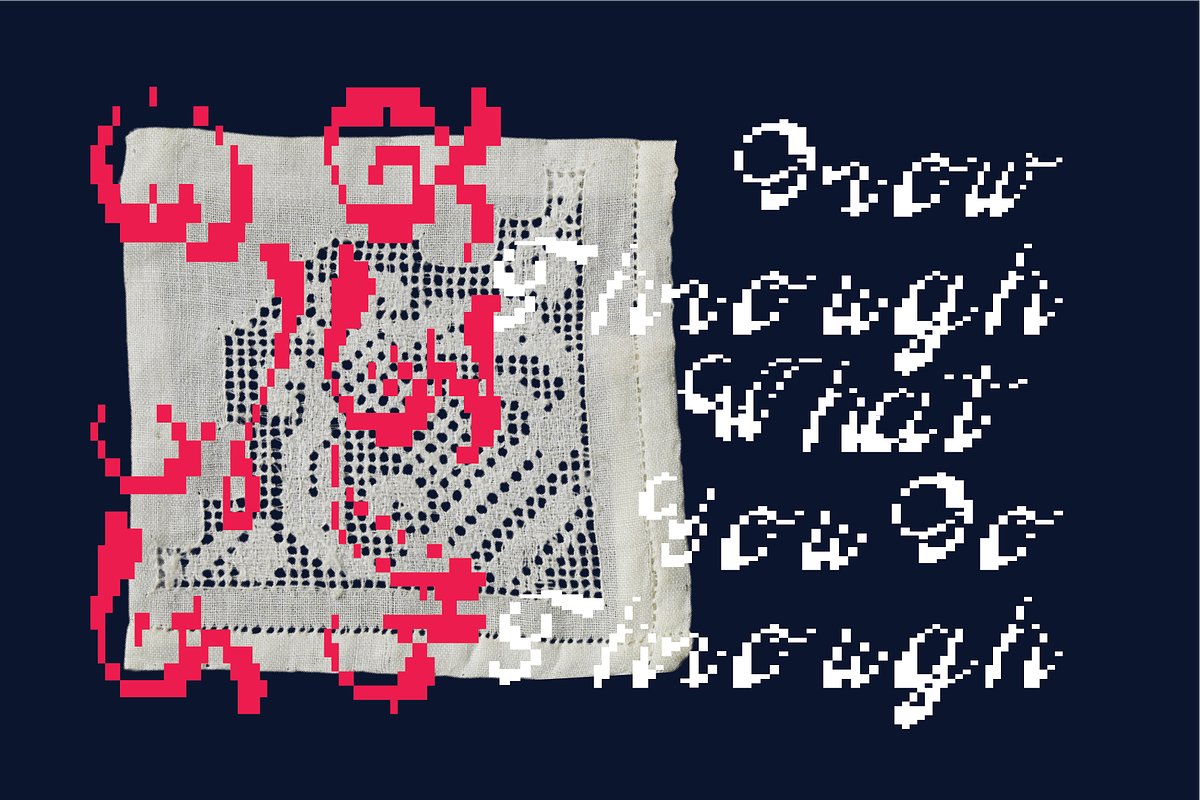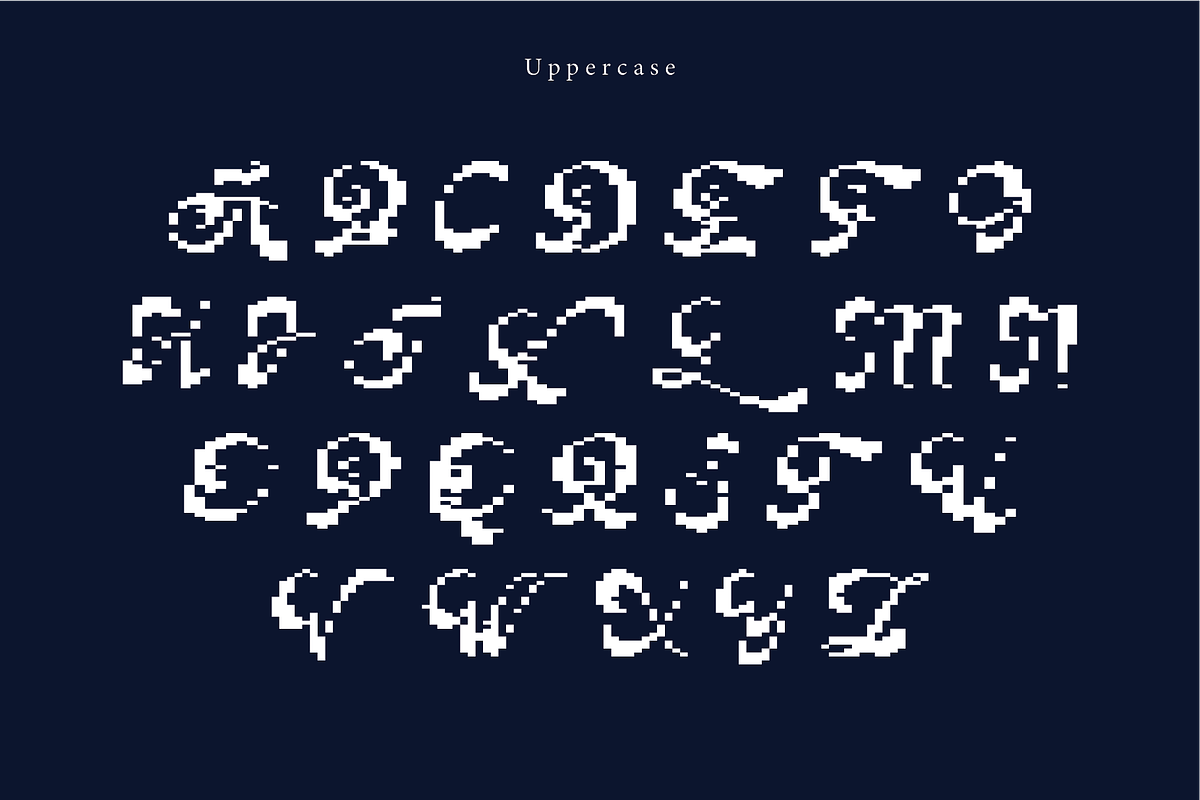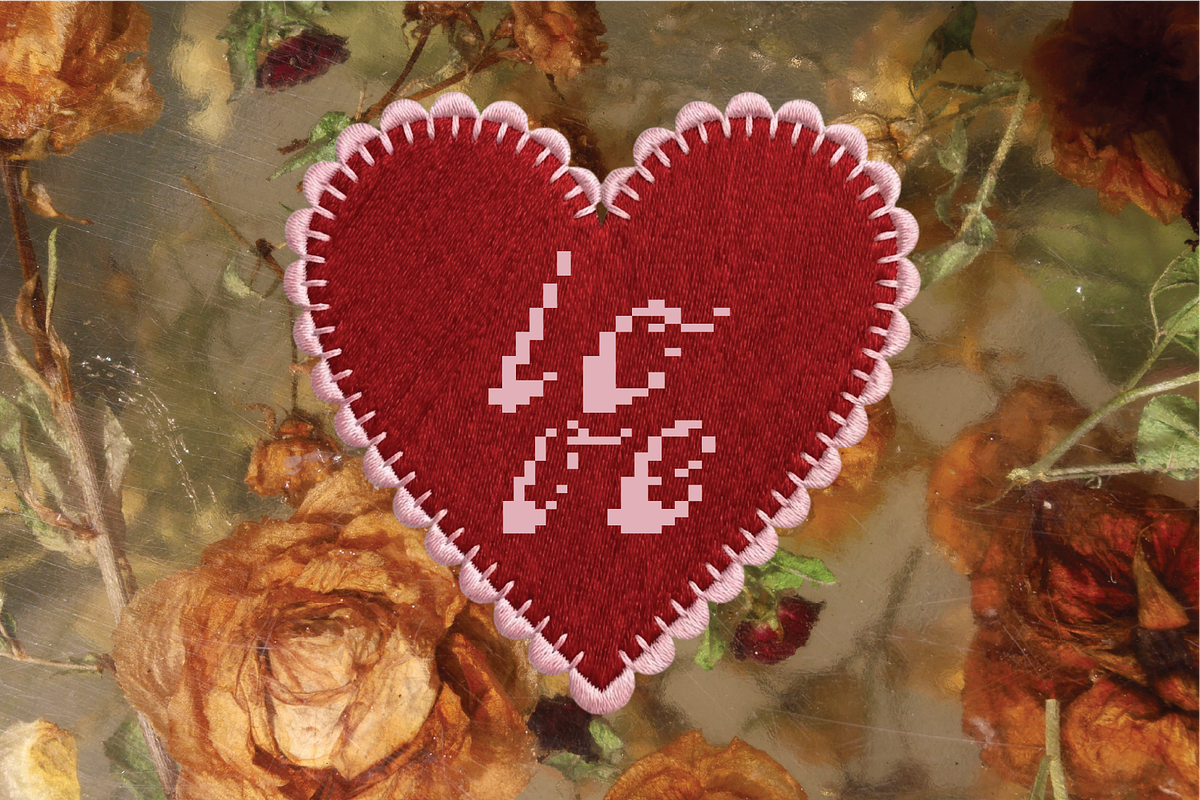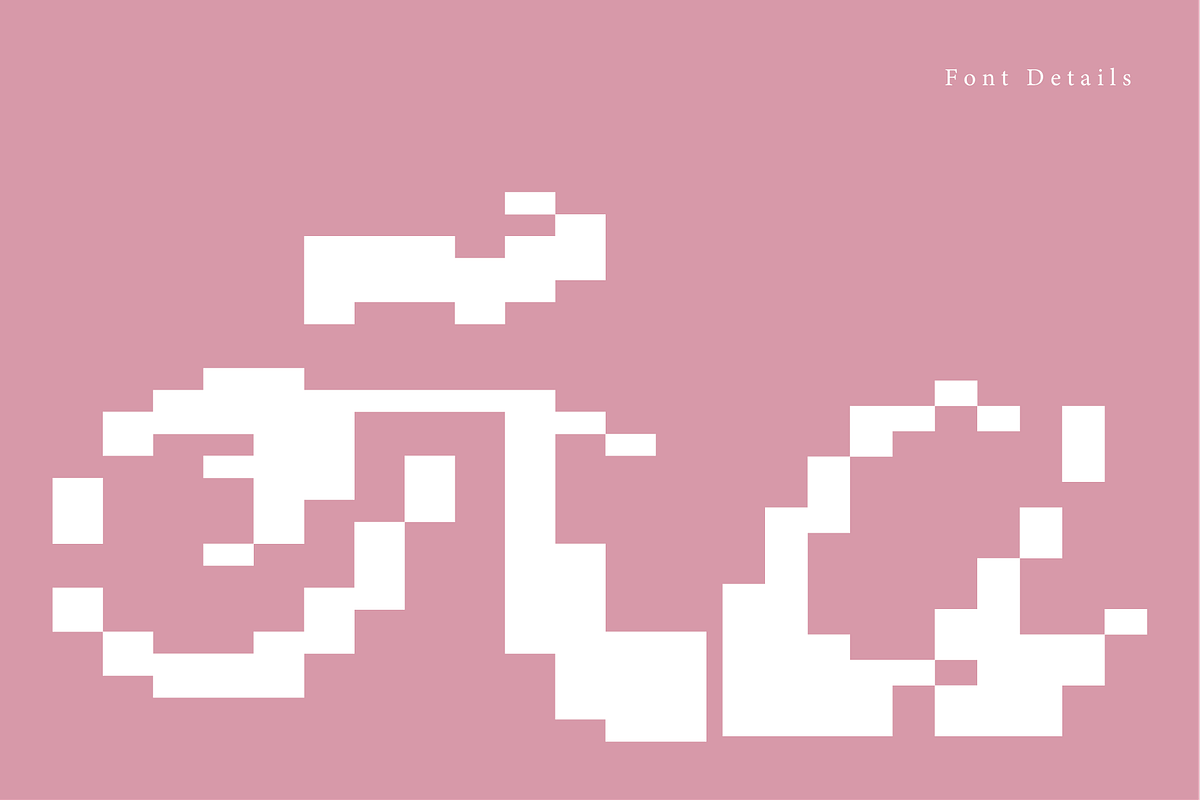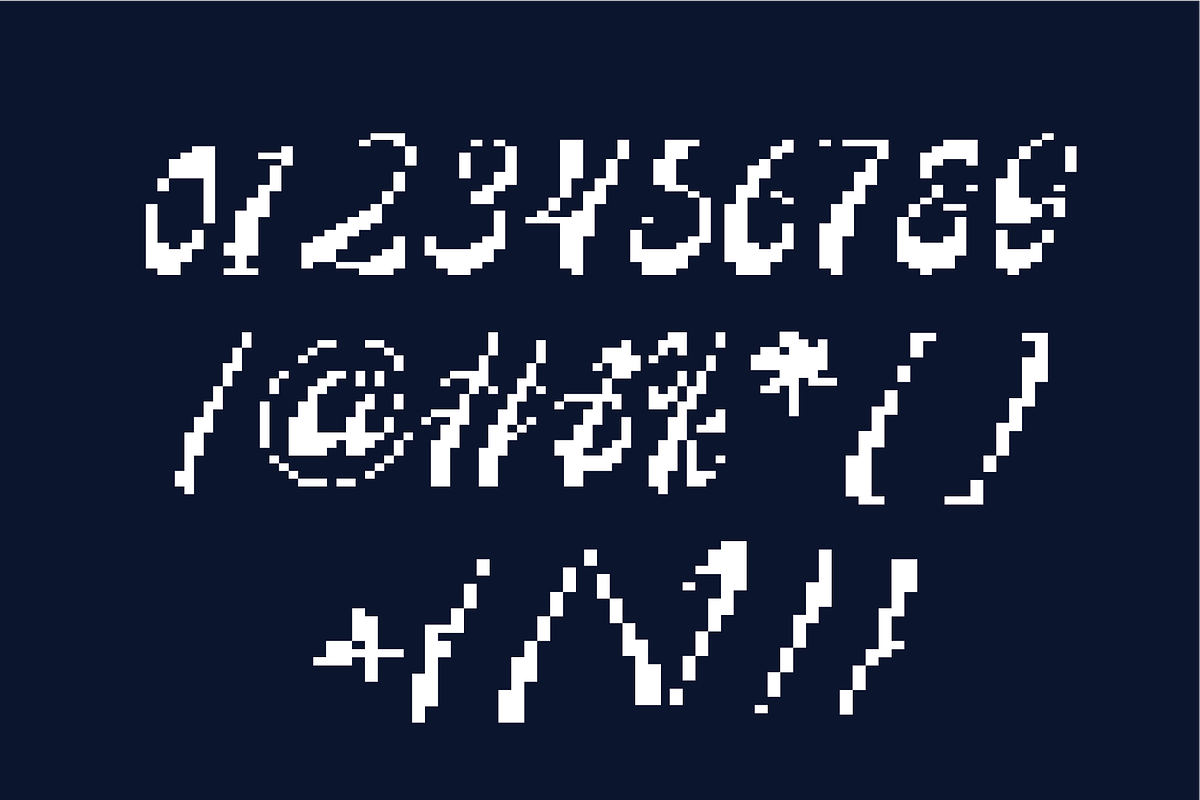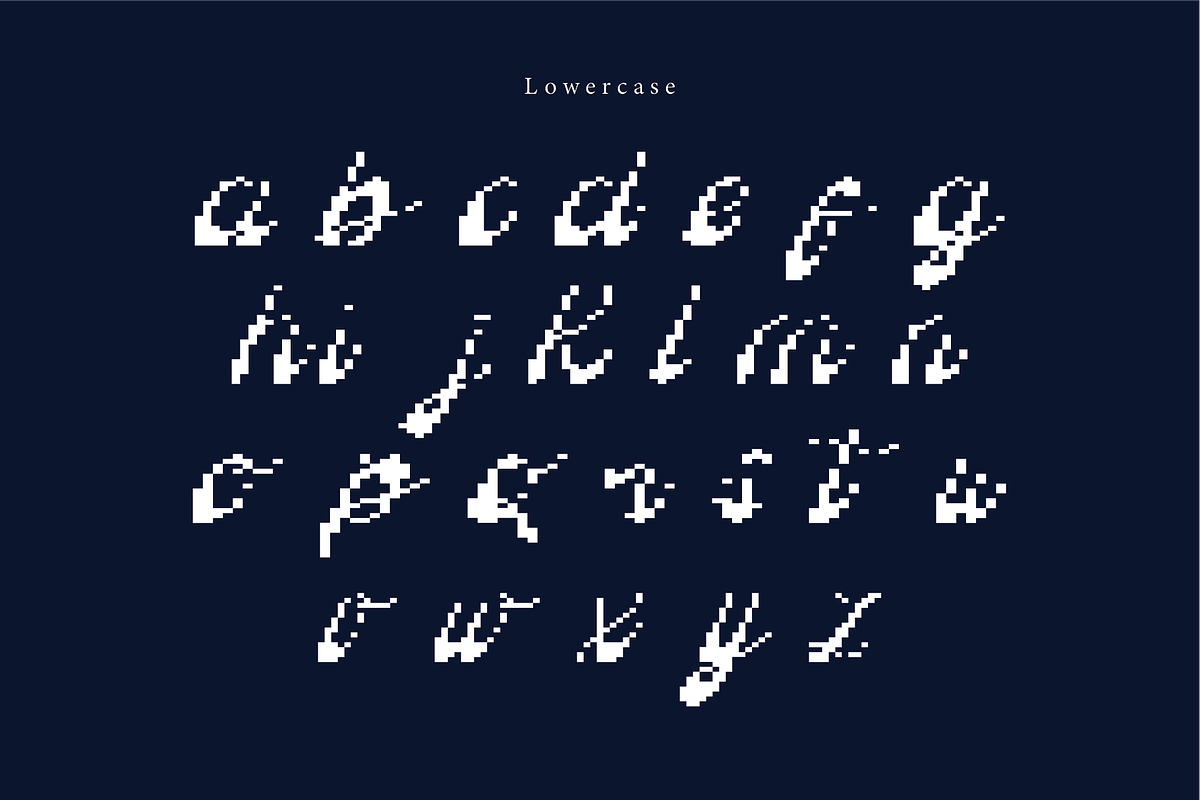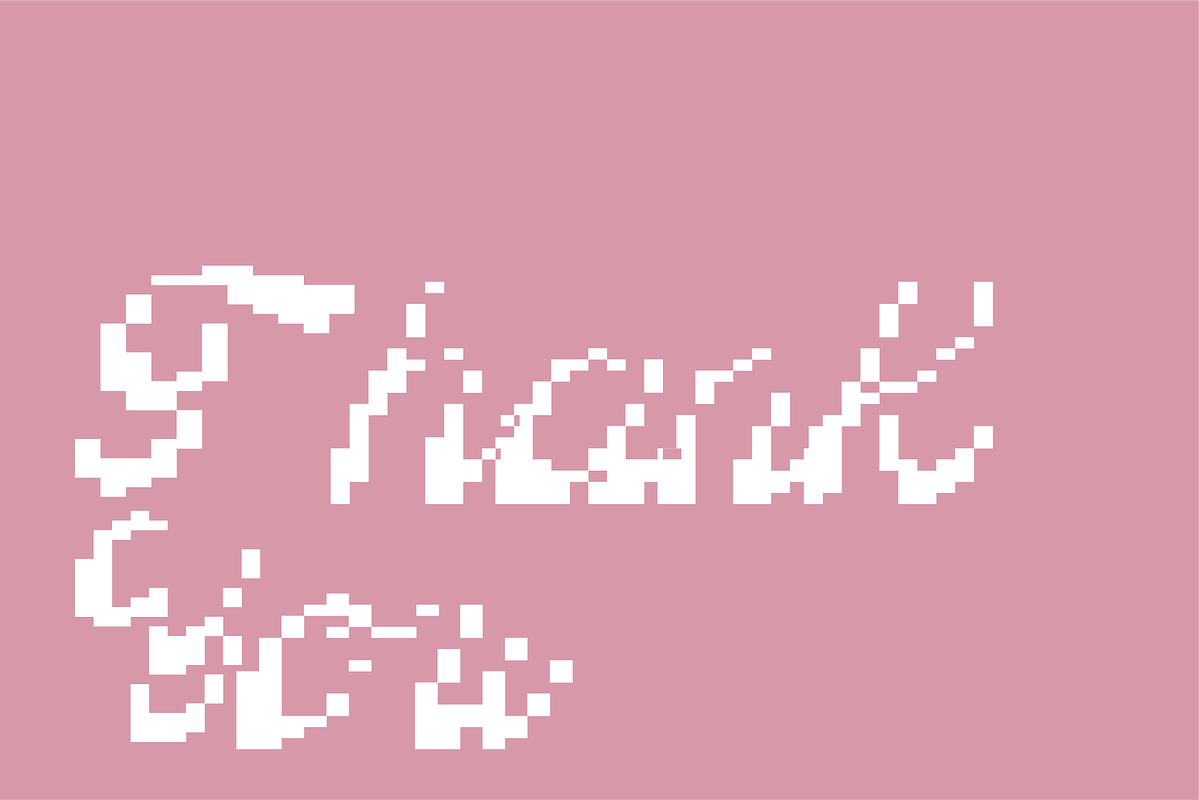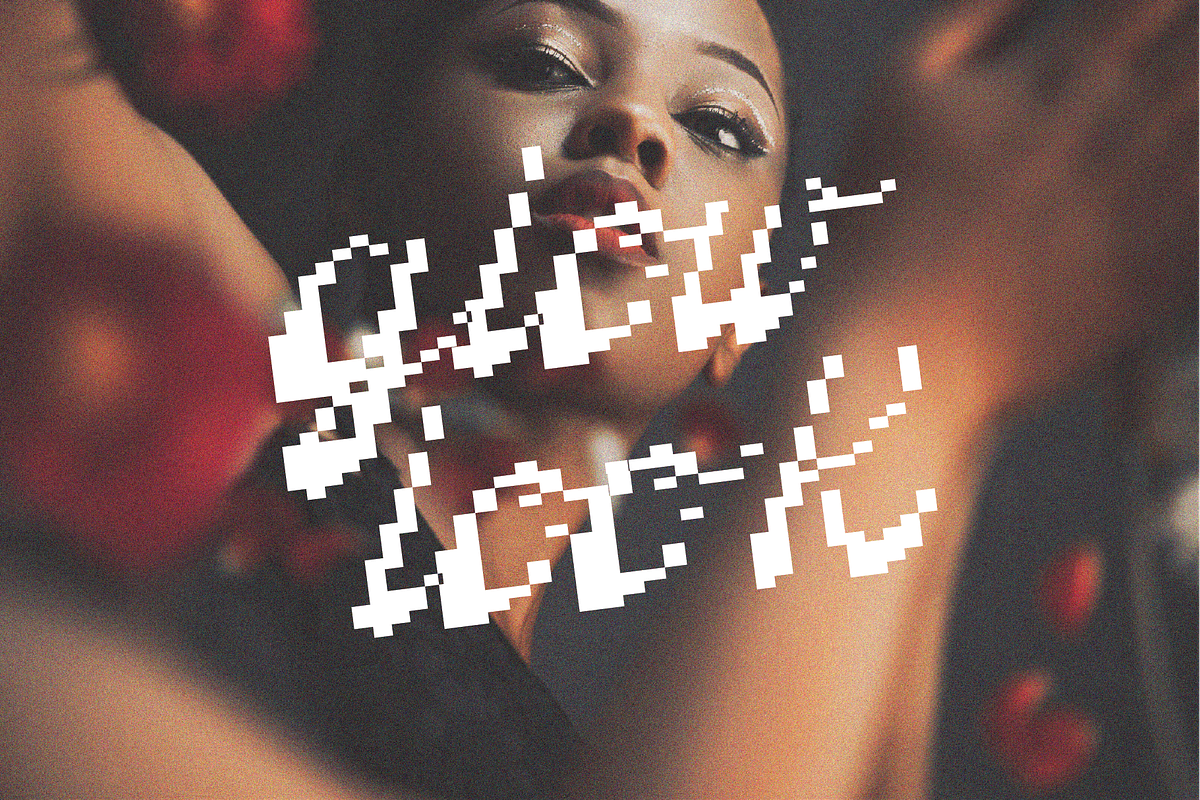
Needle | A Embroidery Font
Needle is a unique embroidery-inspired script font that combines digital pixel art with a traditional textile aesthetic. Its delicate and bold design is perfect for projects that need a touch of handmade elegance.
Numbers, marks and symbols